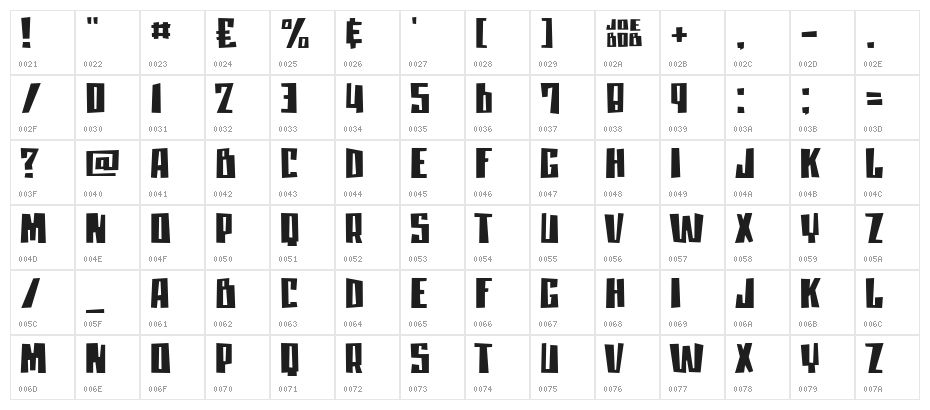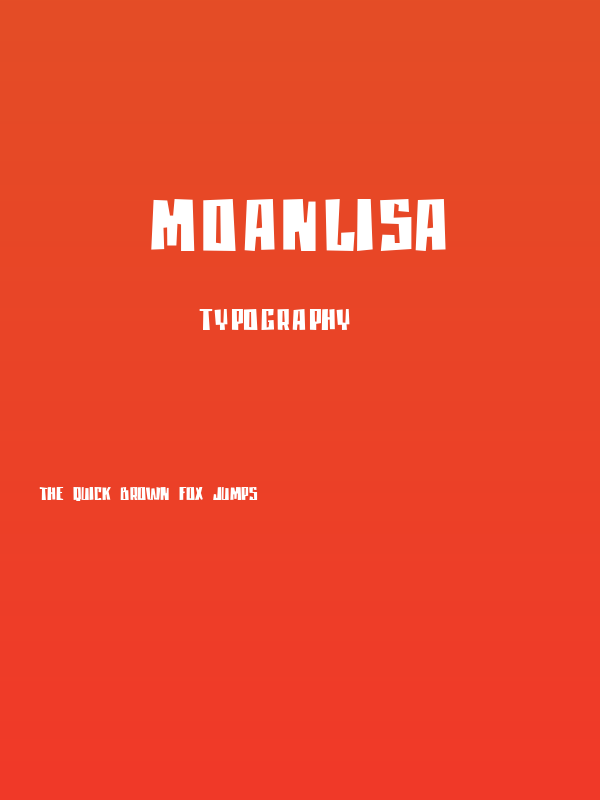
moanLisa Font
moanLisa Description
This bold and striking font features a unique, angular design with a strong geometric influence. The uppercase letters are characterized by sharp edges and a blocky appearance, giving them a modern and edgy feel. The lowercase letters maintain the same angular style, ensuring consistency throughout the typeface. Numbers and special characters are designed to match the boldness and geometric nature of the alphabet, making this font highly distinctive. The overall design is perfect for making a statement, with its high contrast and impactful presence.
| Proposed Projects | Ideal for posters, album covers, branding, and any project that requires a bold, eye-catching typeface. |